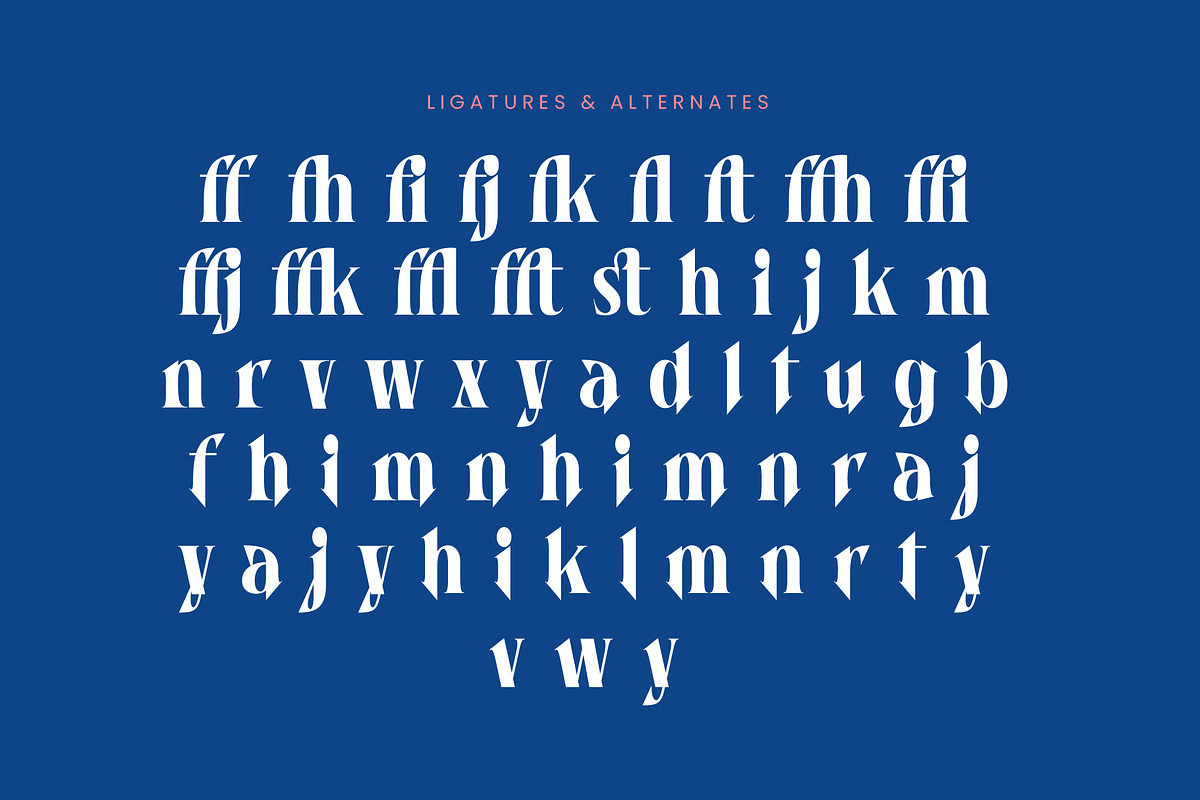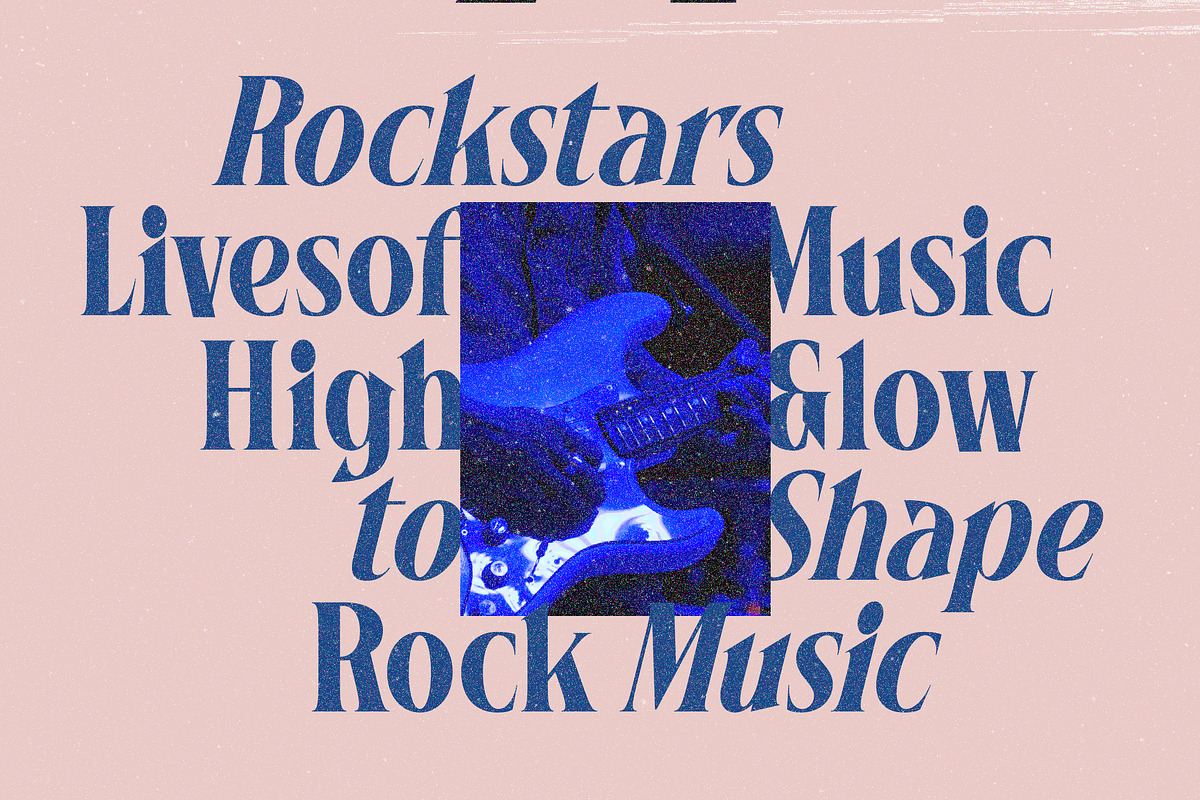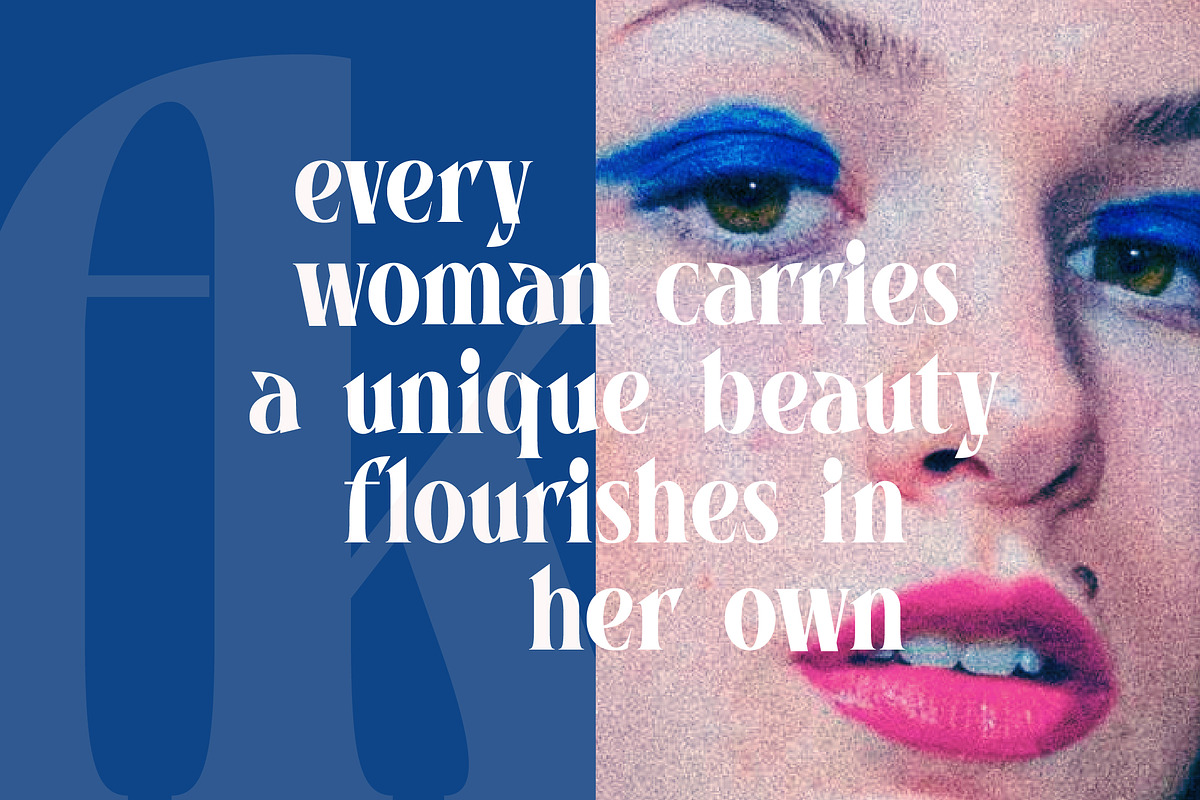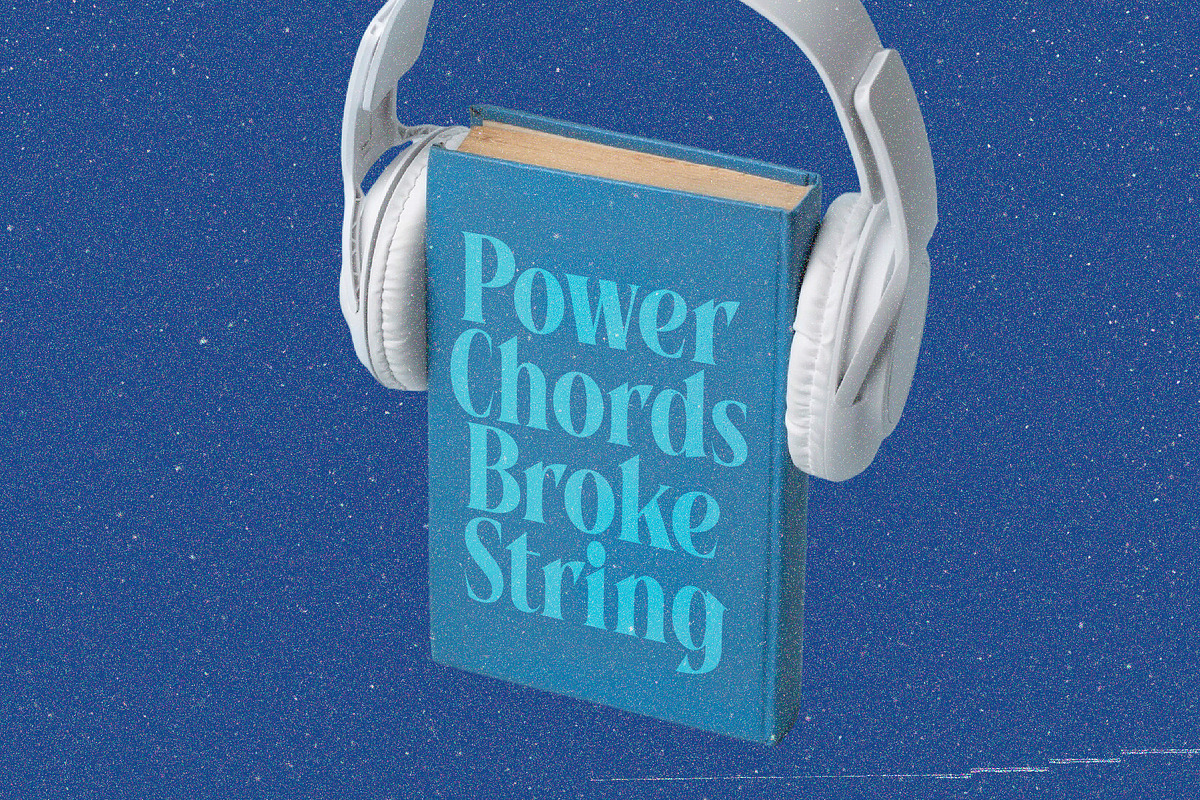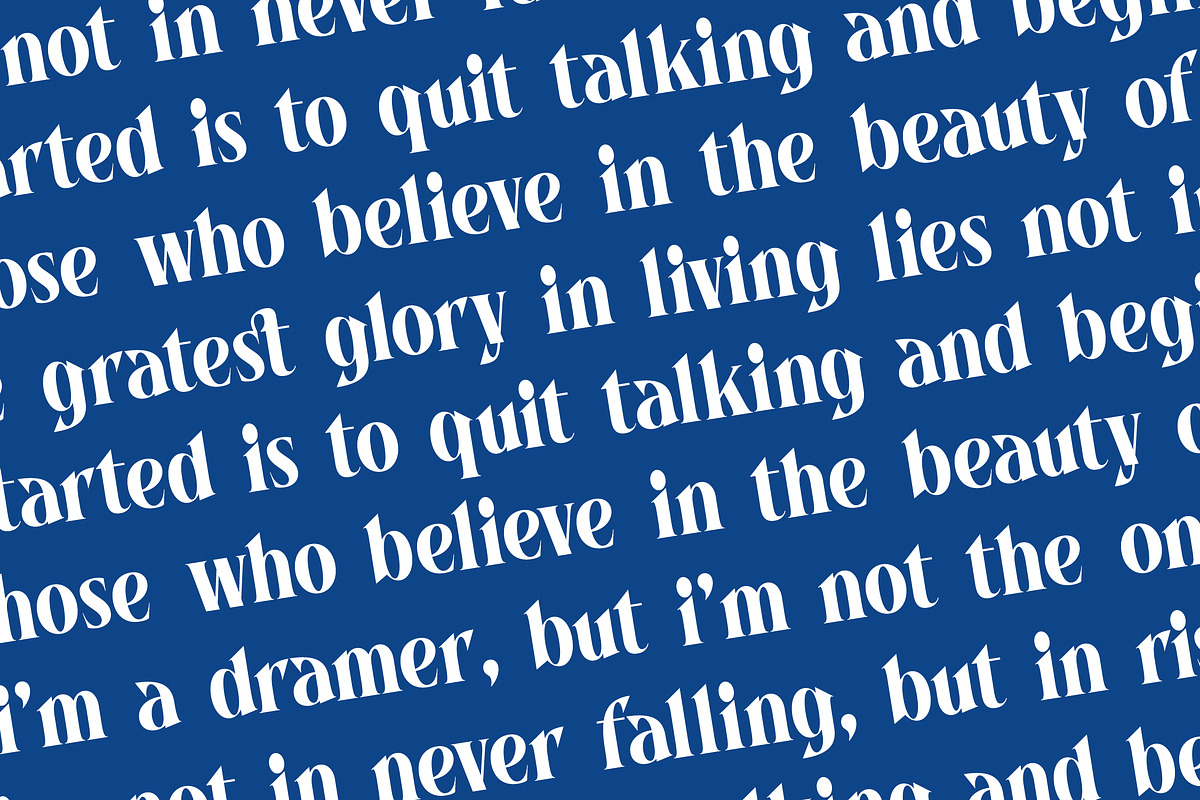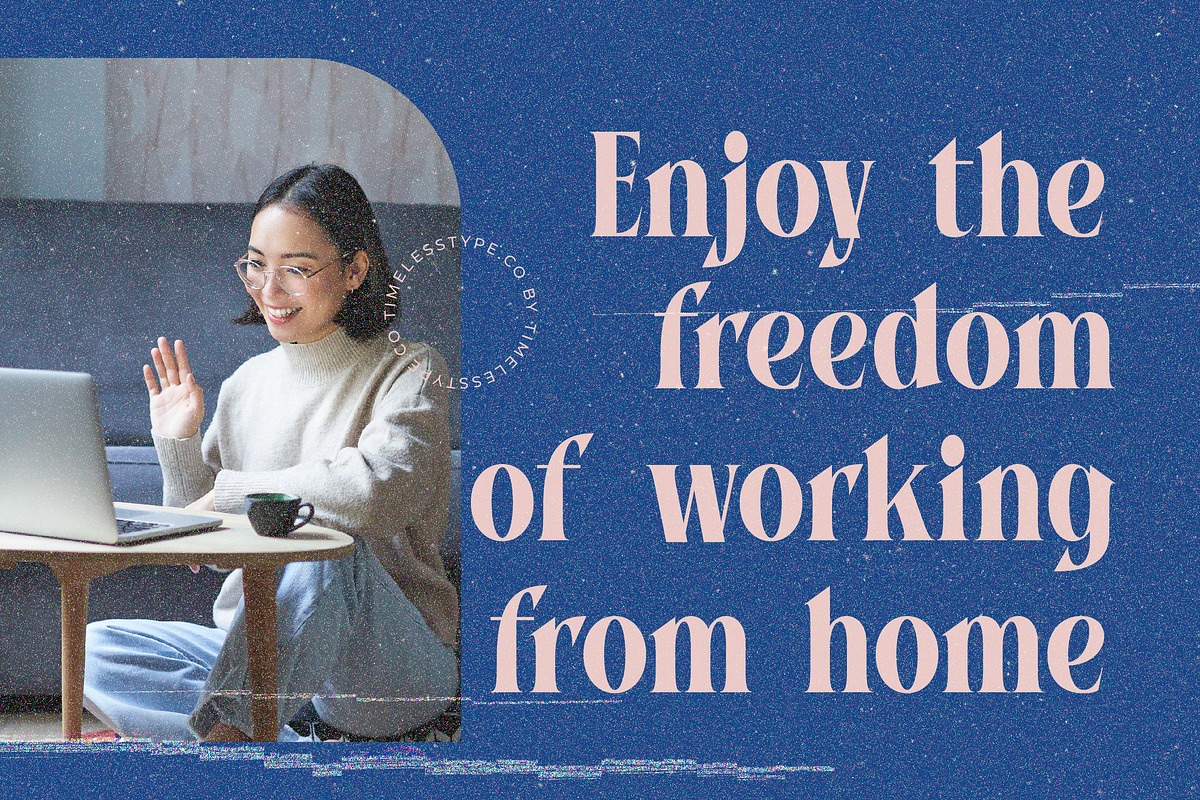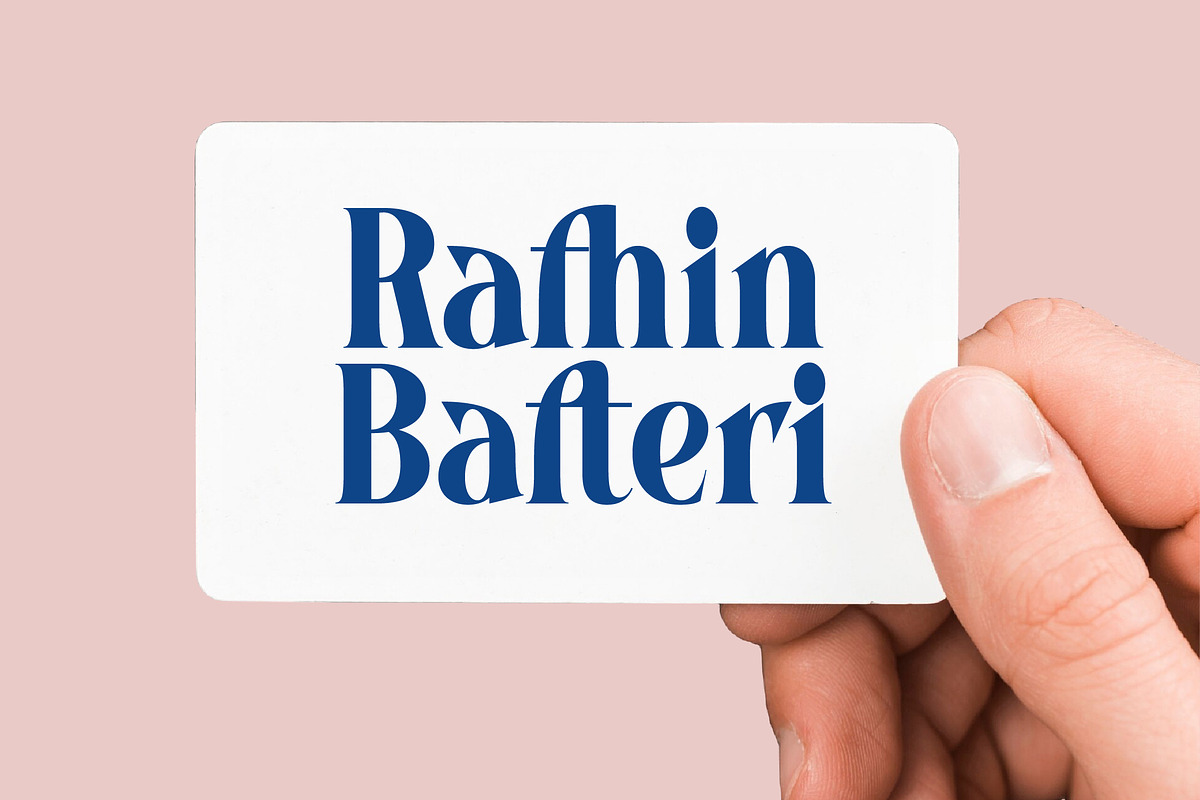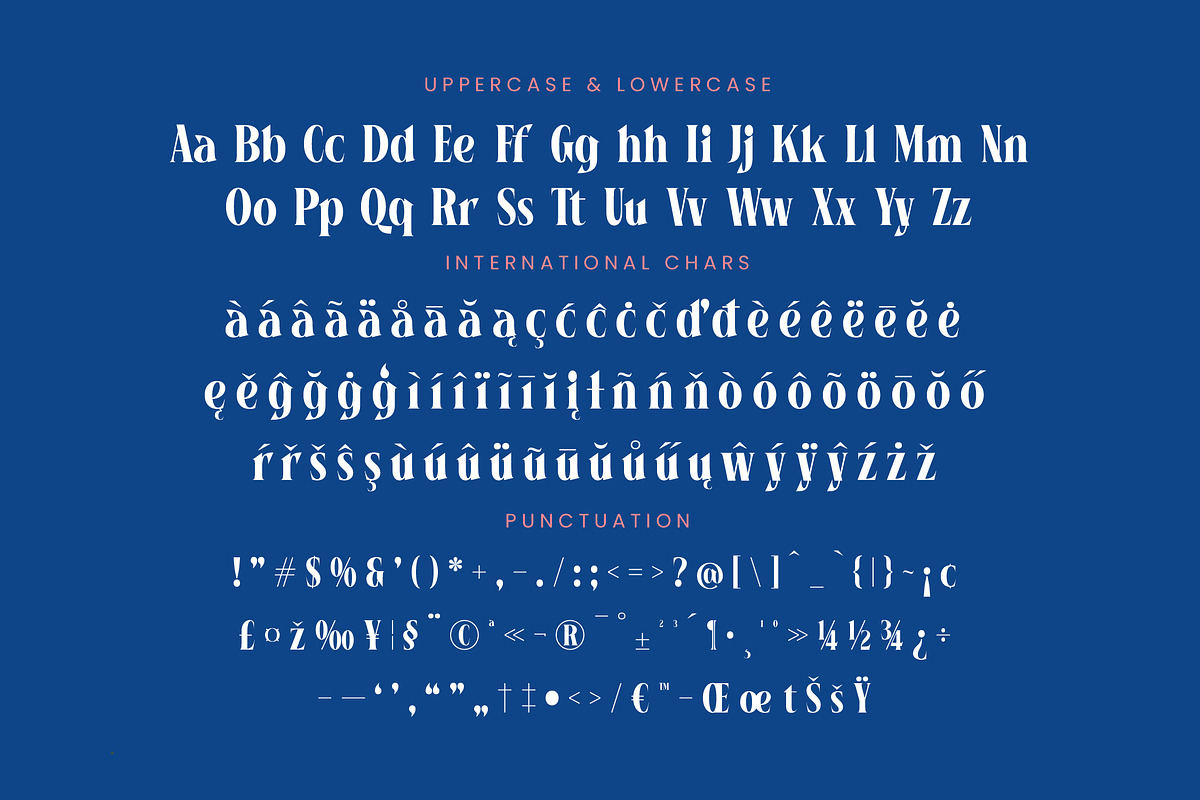
Bycorps Existent Bold Serif Font
Elevate your visual narrative with the striking presence of Bycorps Existent, a font that commands attention through its impeccable balance of power and grace. This typeface is more than just letters; it is a statement of intent for designers seeking to break the mold of conventional typography.
Born from a desire to blend classical serif foundations with the sharp, aggressive edges of contemporary street style and high-fashion aesthetics, the inspiration behind this font lies in the intersection of tradition and subversion. It captures the gritty texture of urban life while maintaining the polished finish of a luxury boutique.
The personality of this typeface is defined by its modern serif display qualities, offering a luxury typography feel that is both timeless and provocative. With its high-contrast serif strokes and razor-sharp terminals, it functions as an essential editorial font that delivers maximum branding impact across every digital and print medium.
Aligning perfectly with the current modern serif trend, this typeface meets the industry demand for editorial display fonts that prioritize personality over generic legibility. It caters to the shift toward character-driven typography, where each letterform is a piece of art that tells a unique story within a larger brand identity.
This versatile tool is engineered for high-end logo design and comprehensive branding projects that require a sophisticated edge. It excels in editorial layouts, premium product packaging, and minimalist wedding stationery, while its bold silhouette makes it a natural choice for the fast-paced world of fashion and lifestyle marketing.
To ensure complete creative freedom, the package includes a robust set of 21 ligatures and 47 alternates that allow for bespoke letter combinations. It also features comprehensive multilingual support and a wide array of international characters, ensuring your message resonates globally without compromising on style.
- Ligature 21 Alternate 47